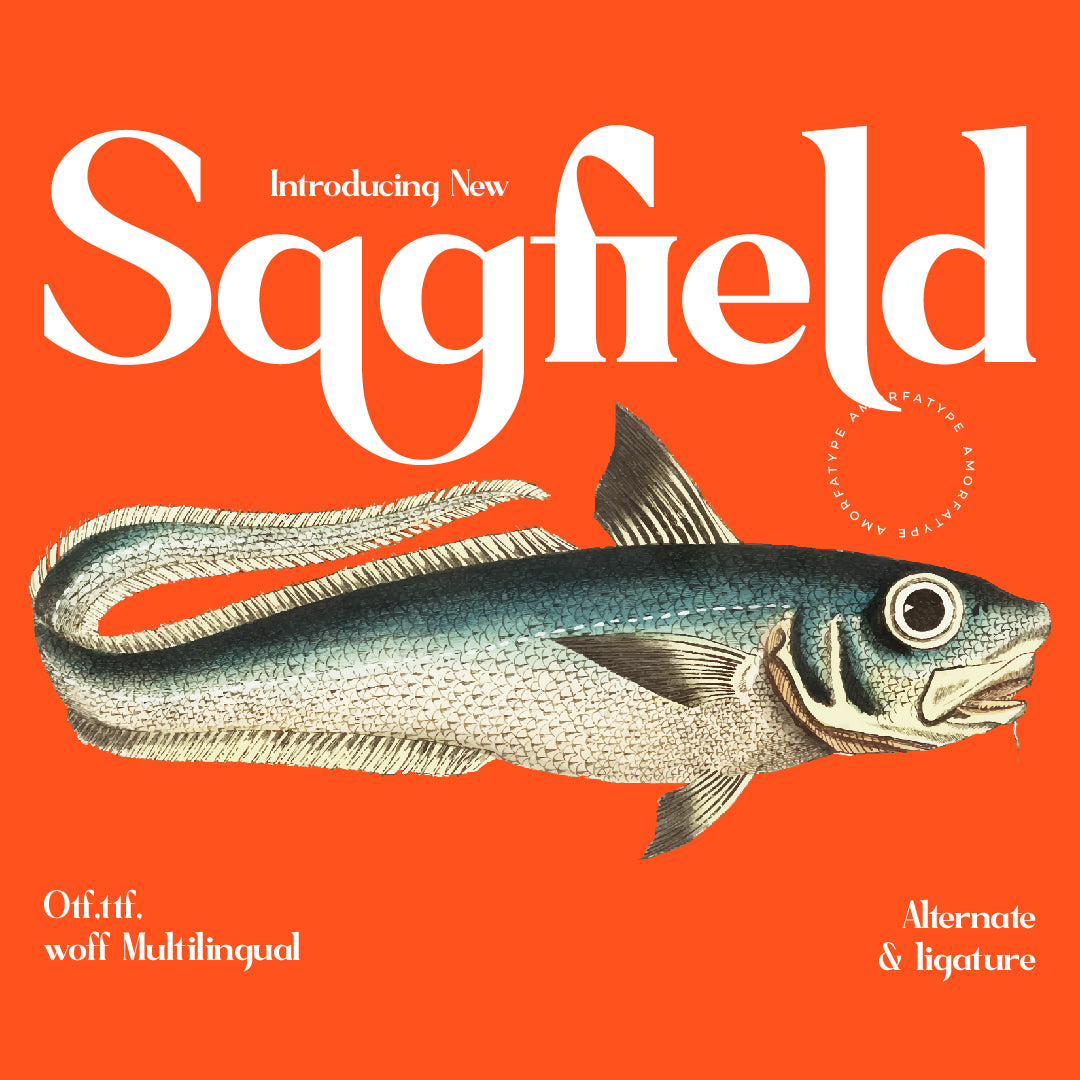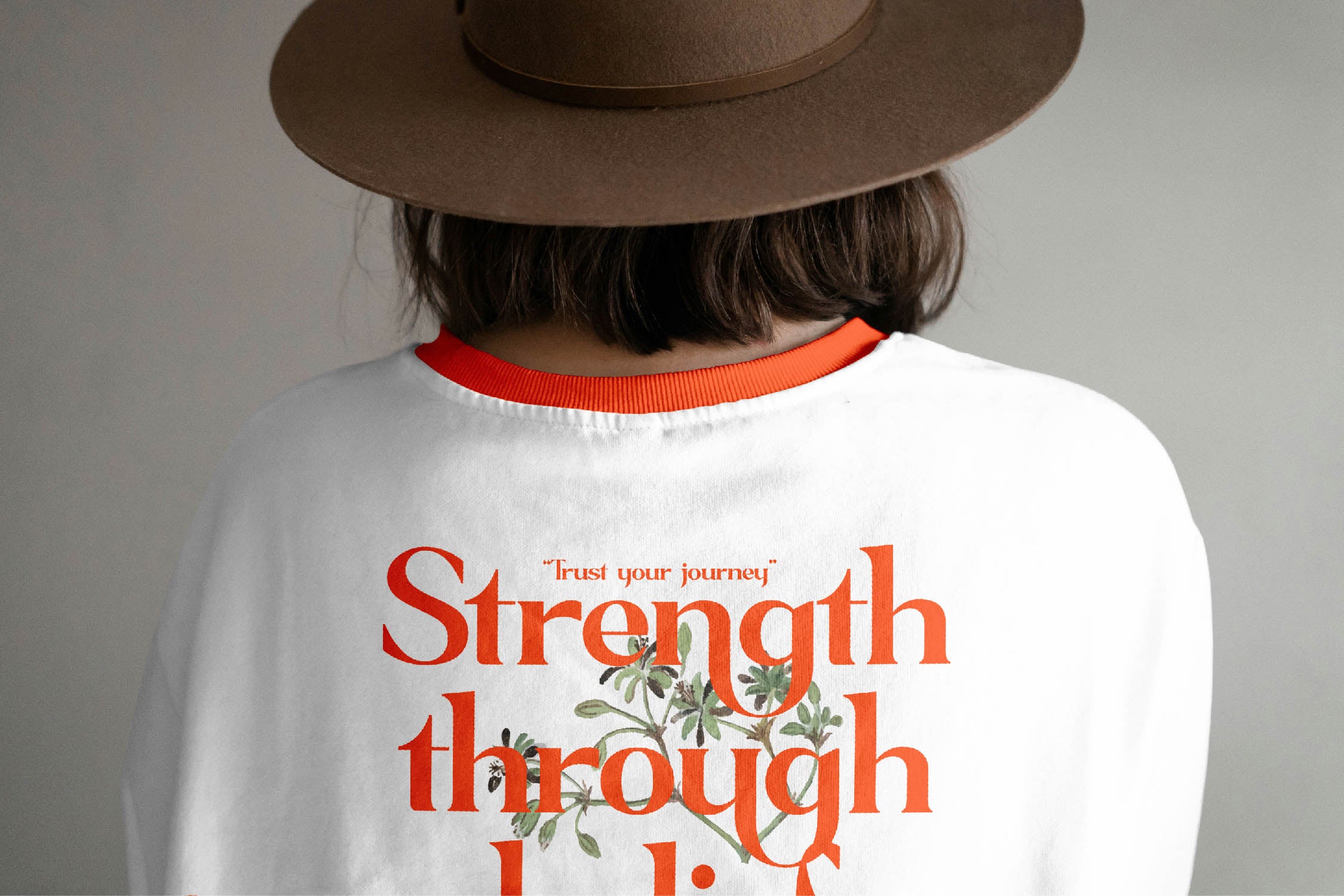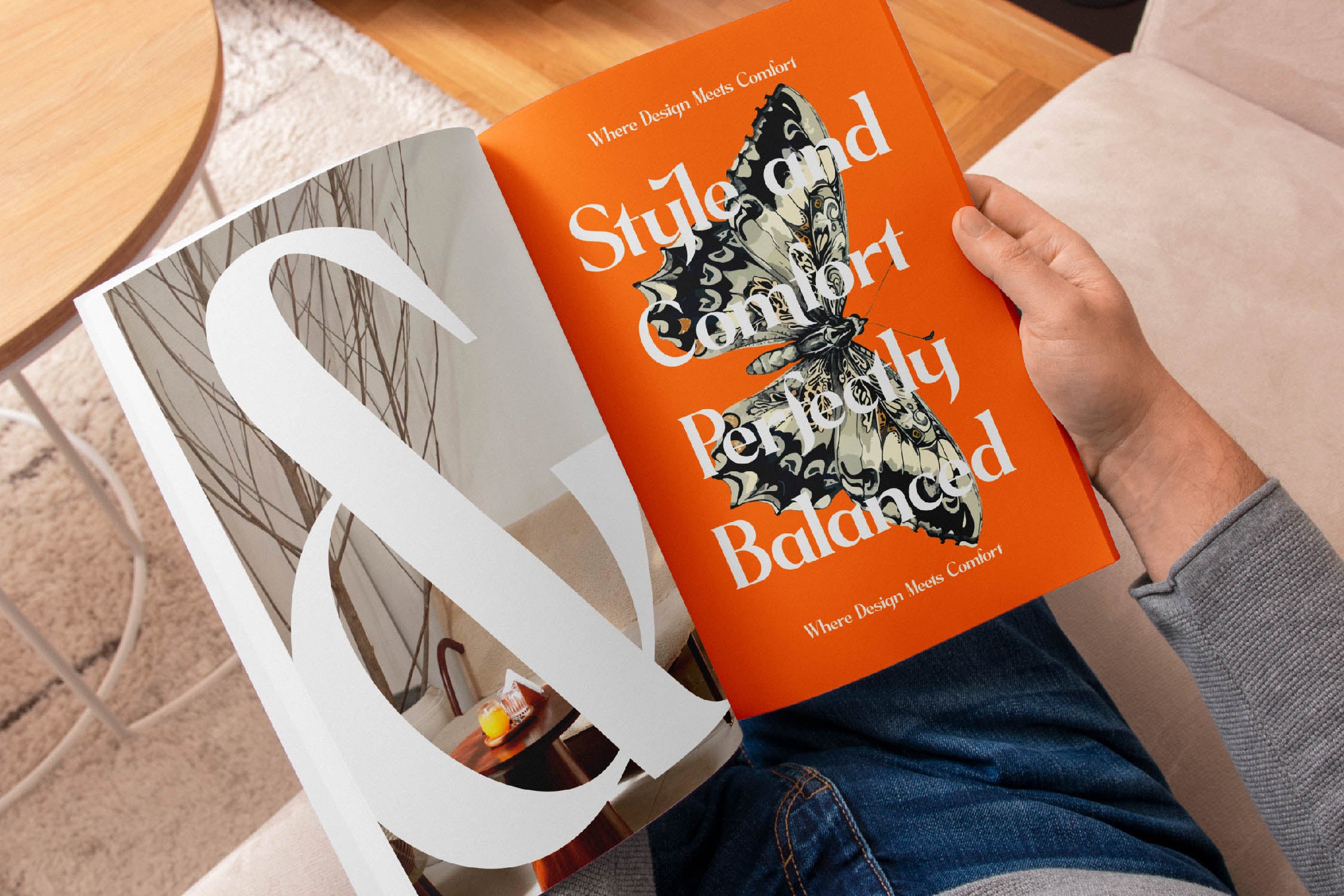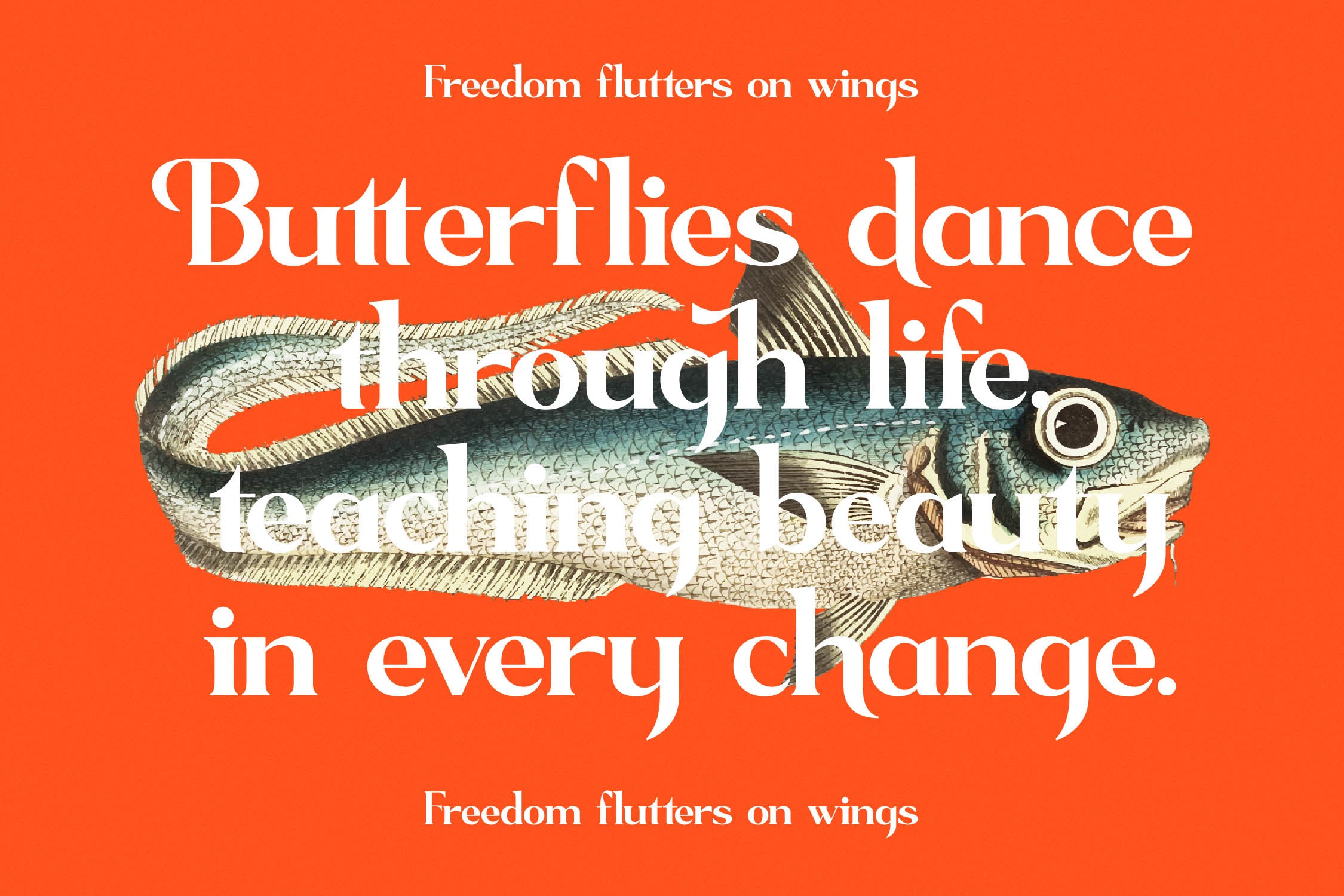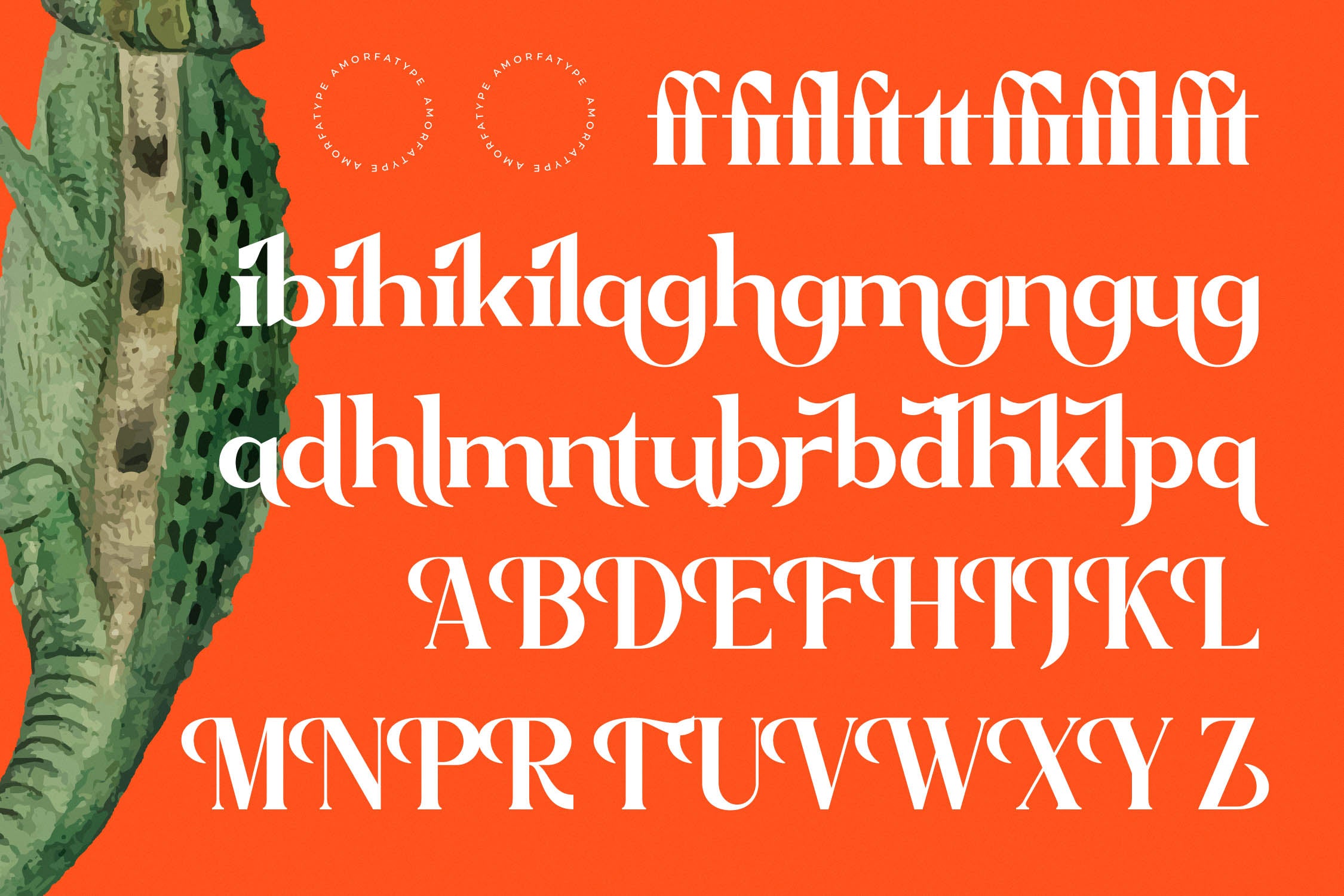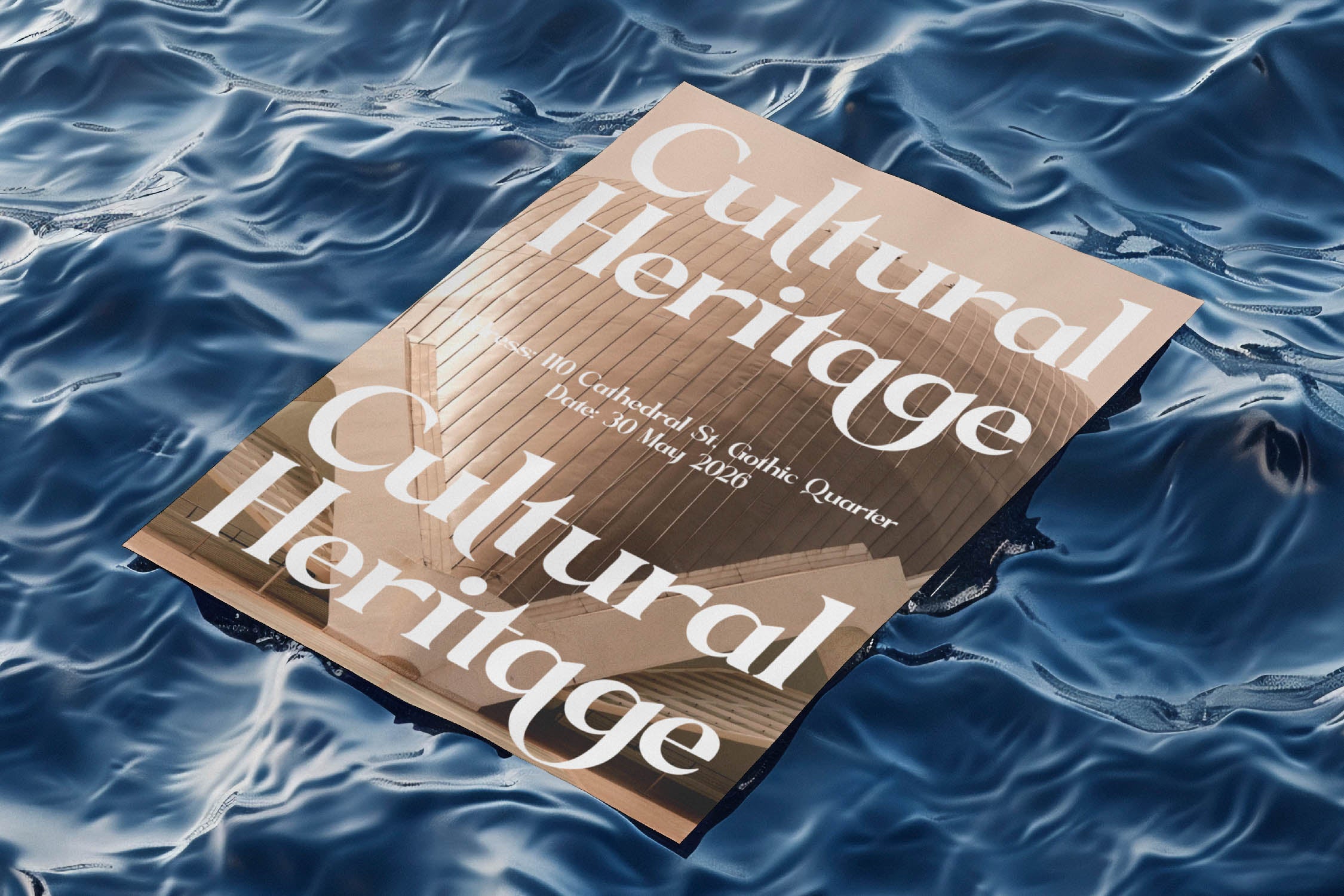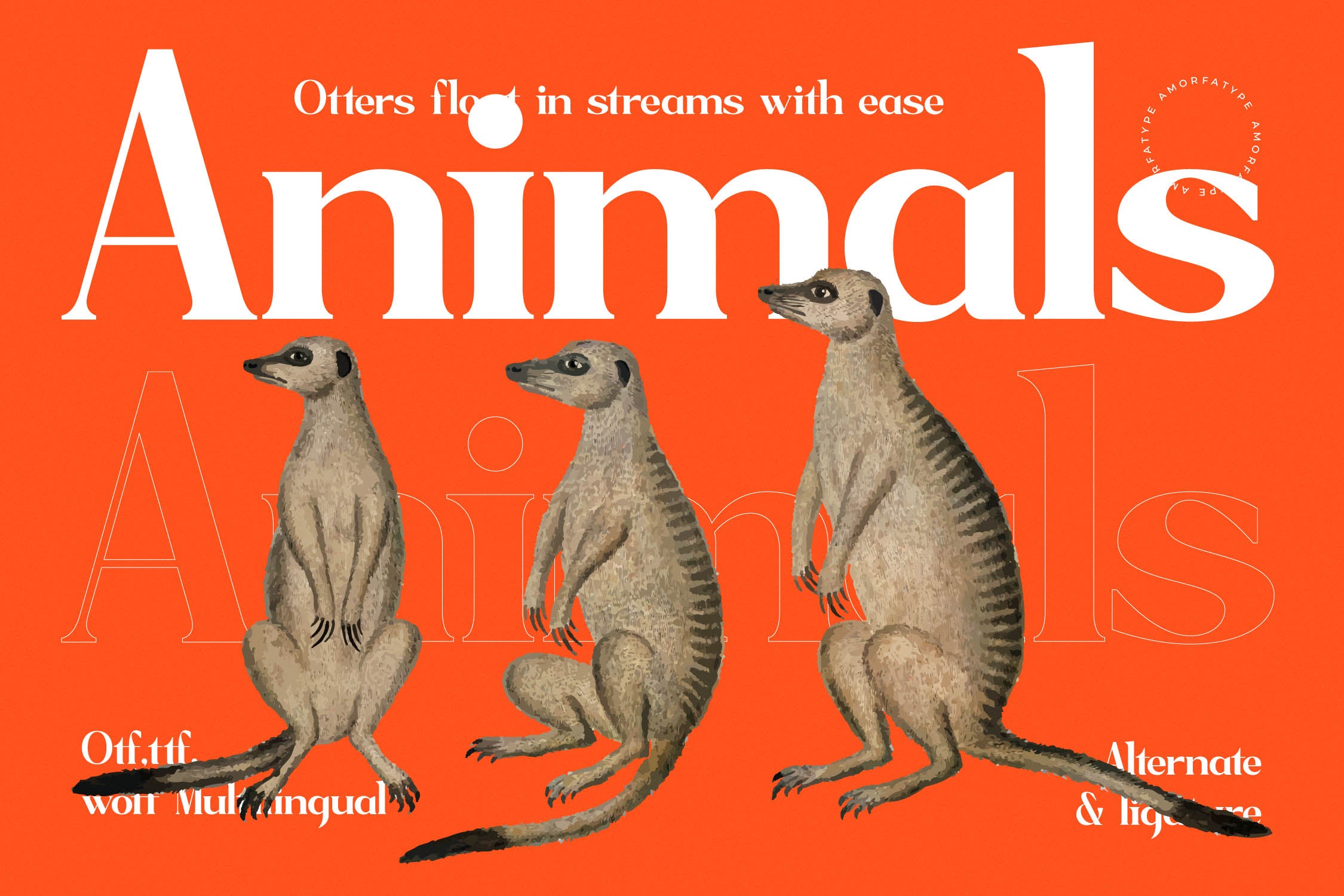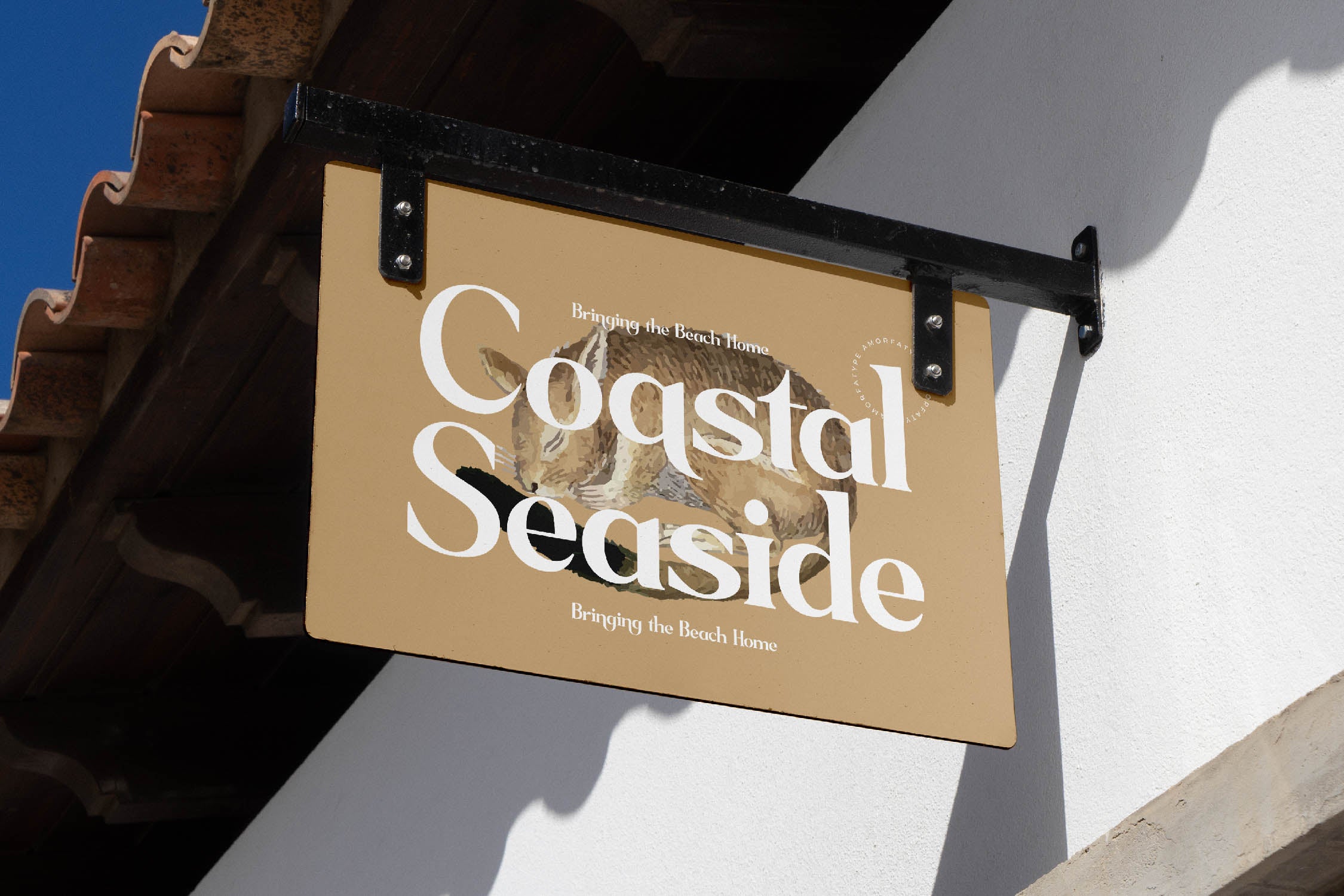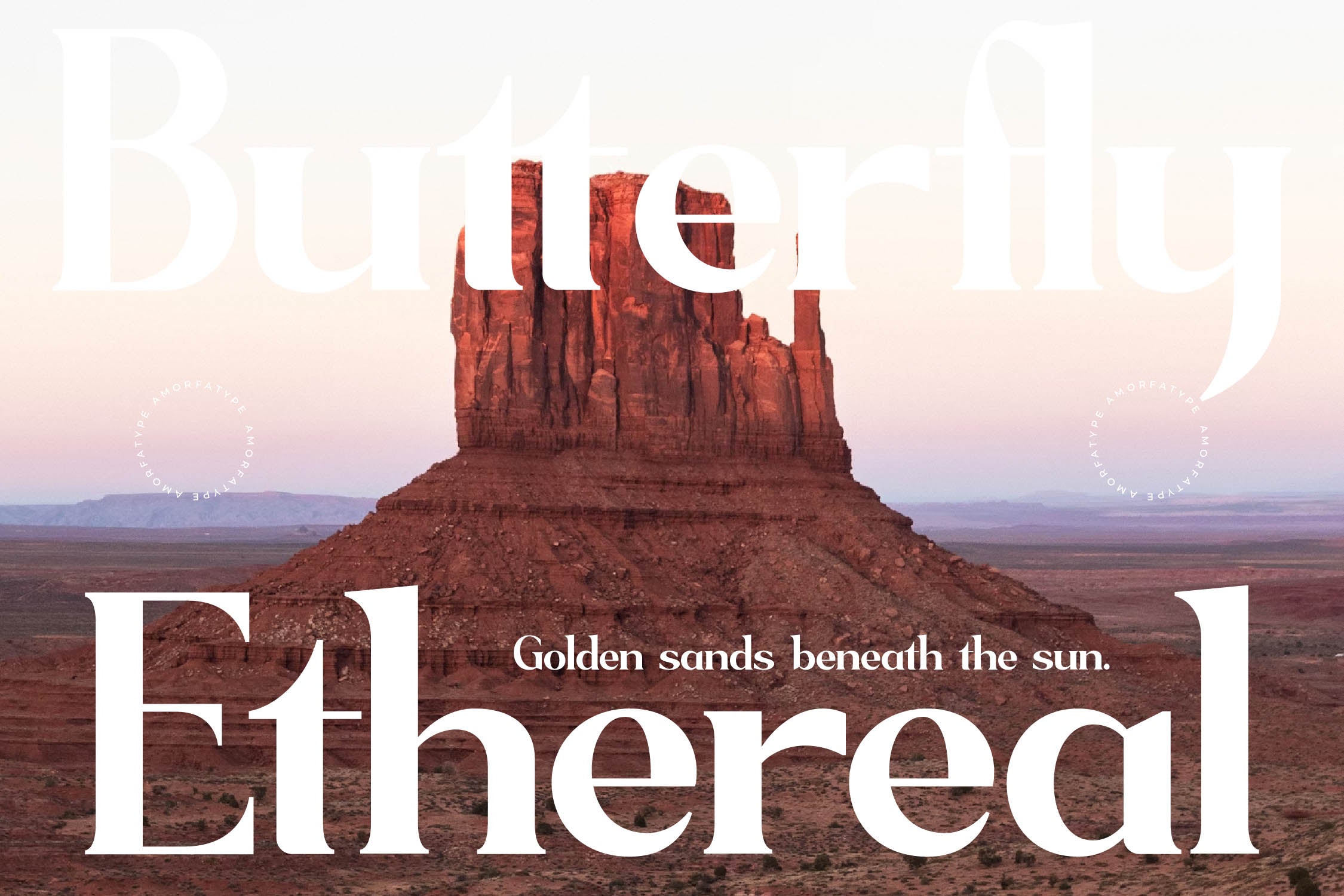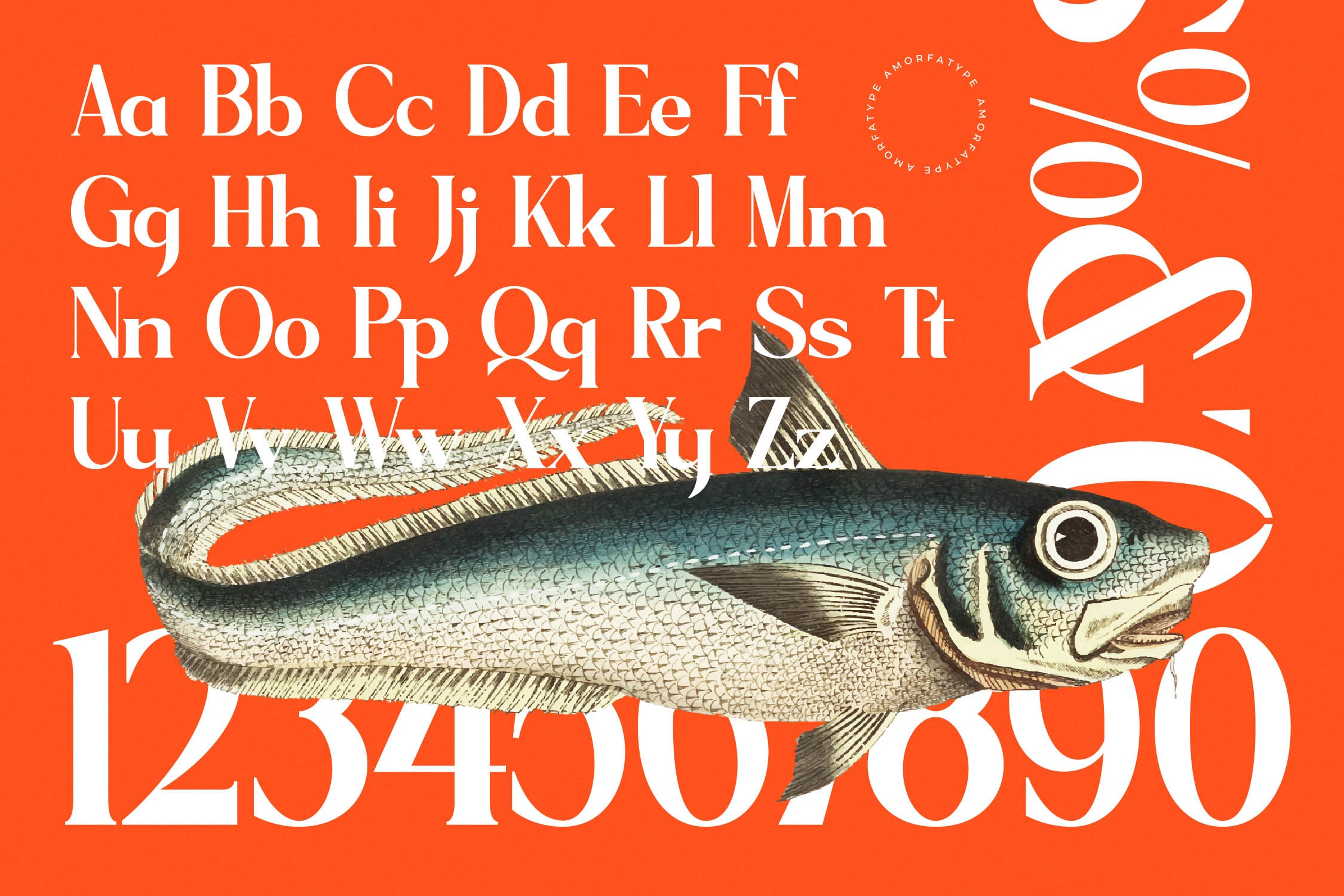
Sagfield Modern Serif Font
Sagfield Modern Serif Font by Amorfatype
Sagfield is a striking modern serif font that seamlessly blends timeless elegance with modern innovation. With sharp serifs and meticulously crafted curves, this font radiates sophistication while ensuring excellent readability. Its balanced contrast in strokes and refined letterforms create a visually harmonious and distinctive typeface, ideal for a variety of creative applications.
Sagfield’s versatility makes it perfect for luxury branding, editorial design, packaging, and digital media. Whether used for bold headlines or refined body text, Sagfield adds a touch of elegance and professionalism to every project. Every detail, from ligatures to alternates, has been thoughtfully designed to provide a sleek and contemporary typographic experience.
Ligatures, Alternates & Swashes